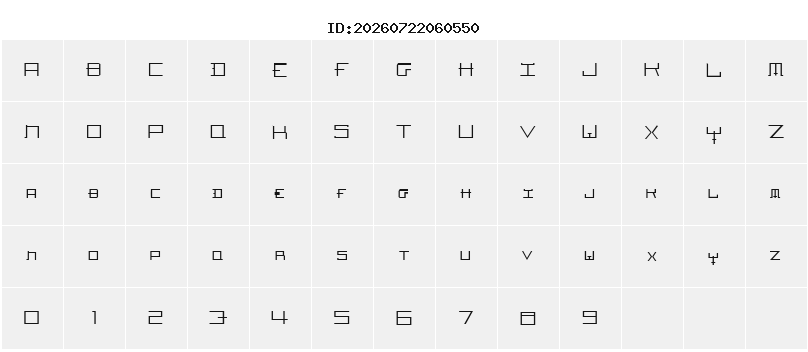
• Font Name: Hozenozzle Thin
• Full Font Name: Hozenozzle Thin
Hozenozzle Thin.ttf is a modern, elegant sans-serif font designed for ultimate readability and visual harmony. Perfect for branding, headlines, web design, and print materials.